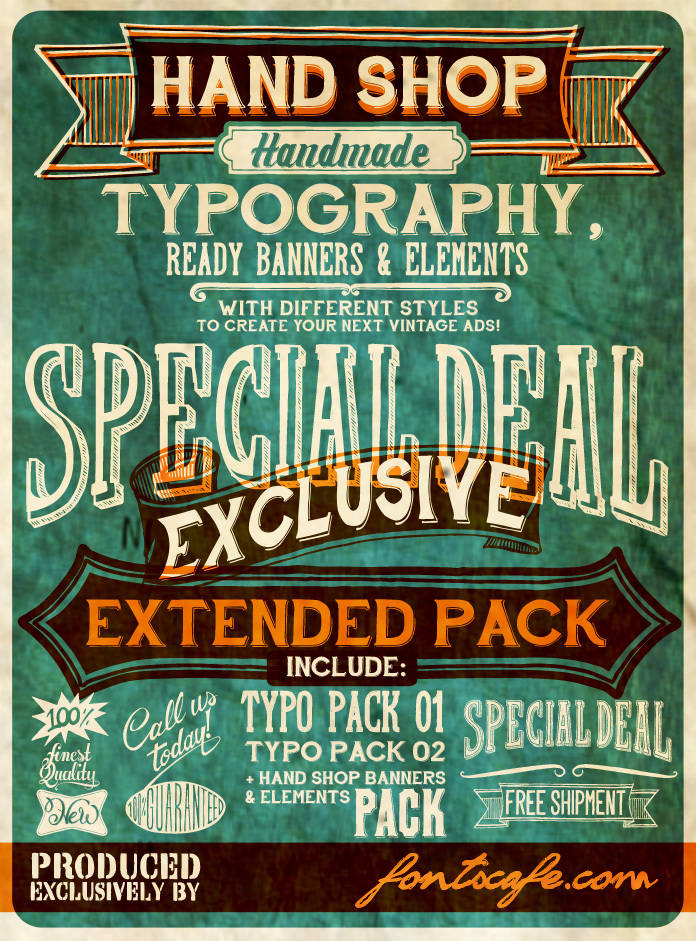
Hand Shop Typography C30 from FontsCafe is a free retro display font whose broad capitals, wedge-shaped serifs, and changing stroke widths echo painted storefront signs and mid-century commercial lettering. Fine inset lines sharpen its stout, irregular silhouette.
Burger restaurant branding gains a decidedly old-fashioned commercial voice from those sturdy shapes, while concert posters and band merchandise tap into their slightly unruly show-card quality. For a cafe or neighborhood market, the inset detailing can turn a simple name into lettering that resembles a painted shop emblem or window sign drawn by a practiced but imperfect sign painter from another era.